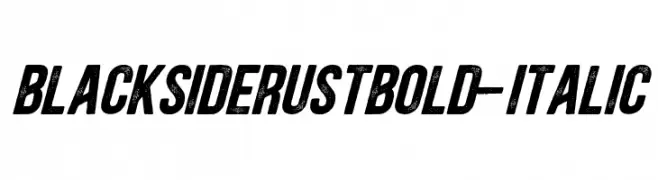
( Fonts by Douglas Vitkauskas - www.vtksdesign.com. Personal-use only. For commercial use please contact owner. )
A bold, distressed font with a grunge texture, perfect for edgy designs.
( Fonts by Douglas Vitkauskas - www.vtksdesign.com. Personal-use only. For commercial use please contact owner. )
A bold, distressed stencil-style font with a rugged, military-inspired look.
( Fonts by Rodrigo German - RASDESIGN )
BMX and cycling-themed pictogram dingbat font.
( Fonts by Adult Ramblings - Anastacia E. Zittel - Personal-use only. For commercial use please contact owner. )
Hand-drawn clothing and accessory icons in a playful style.